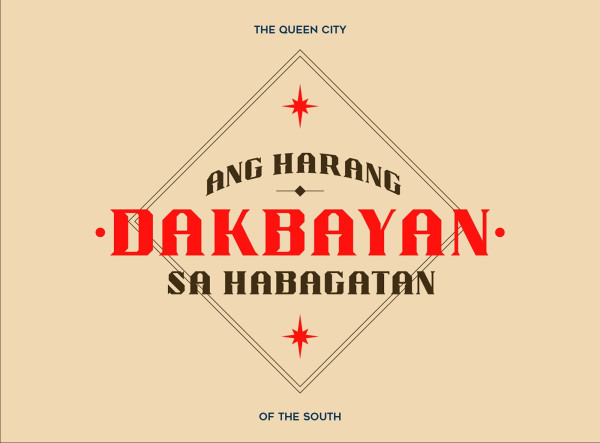
Bisdak Font
Bisdak Font is an uppercase display typeface inspired by Cebu City and the Cebuano language. The typeface is dedicated to all the Bisayang Dako in the Philippines. It is crafted to use for posters, titles, and headlines. Designed by Cebuana, Diane Diana.